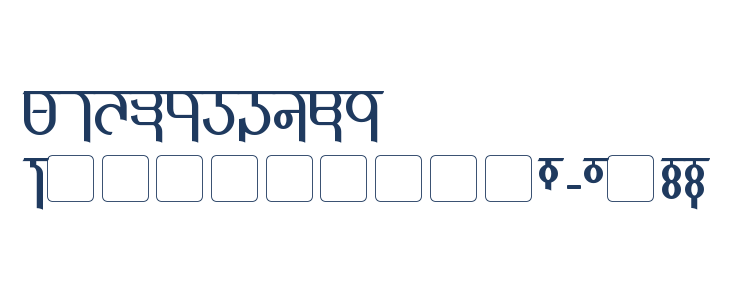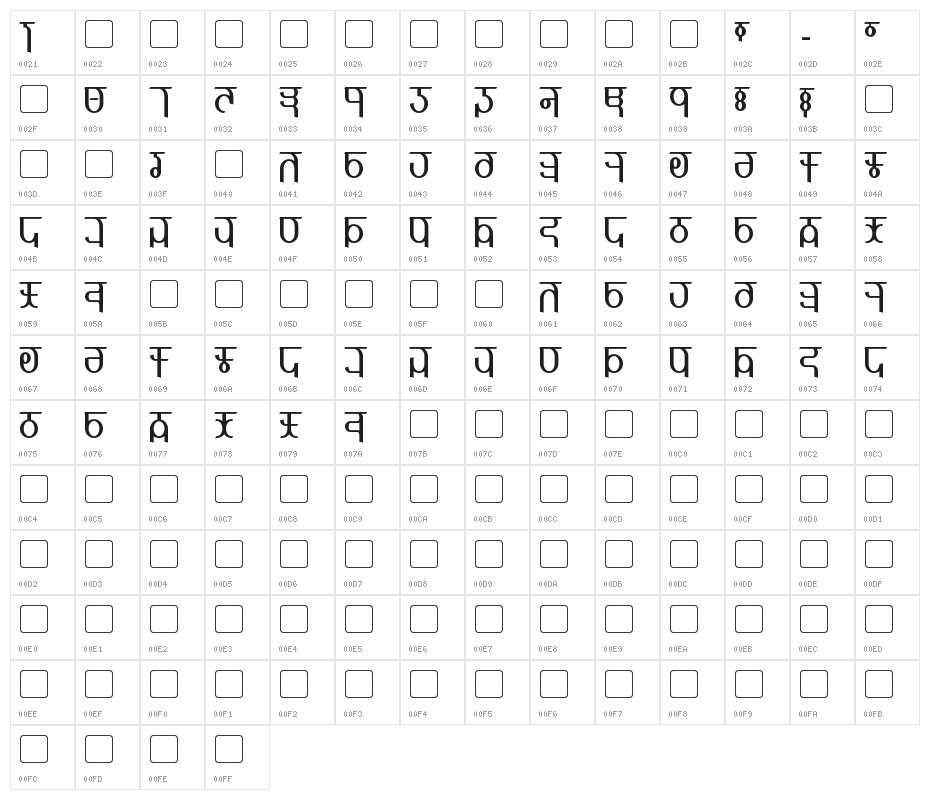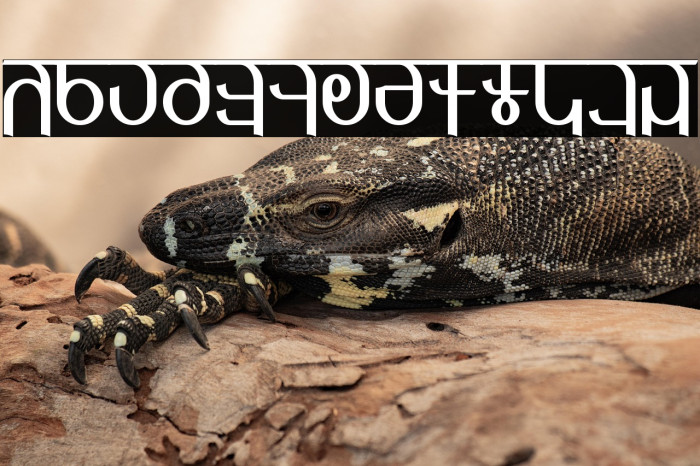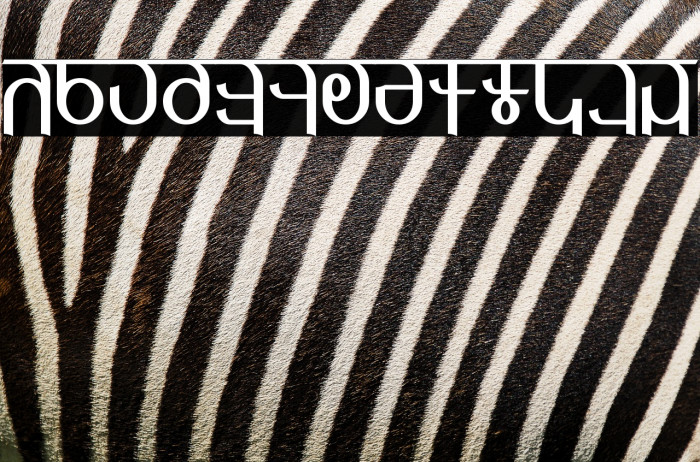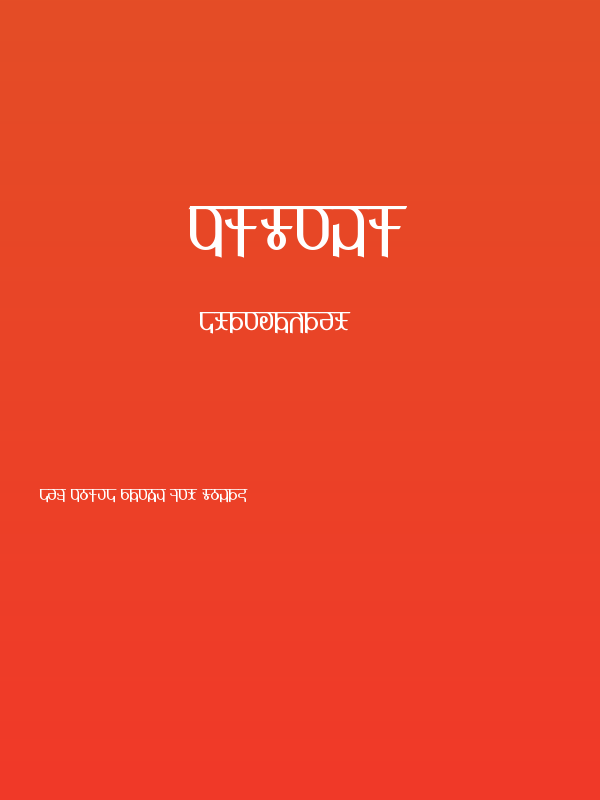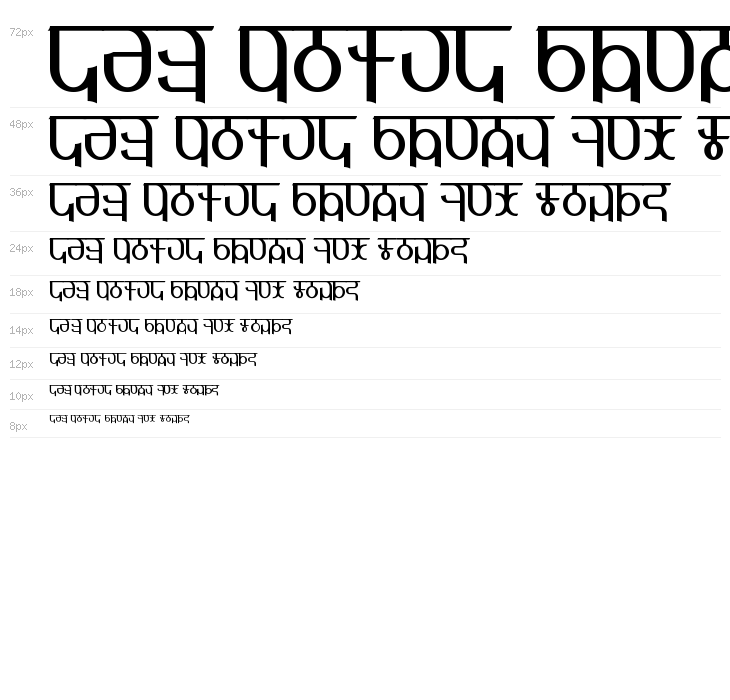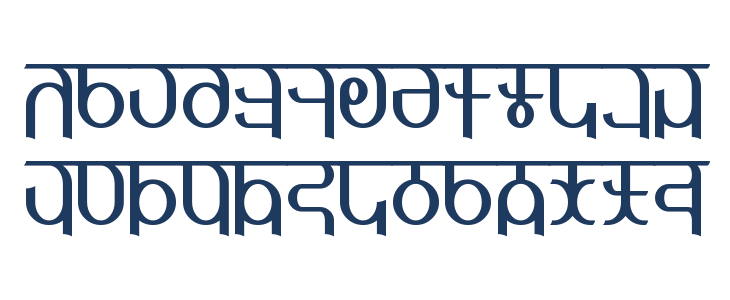
Qijomi Font
Qijomi Description
This script is characterized by its intricate and flowing design, reminiscent of traditional calligraphy. The characters are connected with a horizontal line, giving it a cohesive and unified appearance. The strokes are bold and consistent, with a medium contrast between thick and thin lines. The overall style is decorative and ornate, suitable for cultural or artistic projects. The script's unique structure and elegance make it stand out, offering a distinct visual appeal.
| Use Case | Logos, Decorative text, Cultural projects |
| Proposed Projects | Ideal for cultural artwork, decorative posters, or traditional event invitations. |